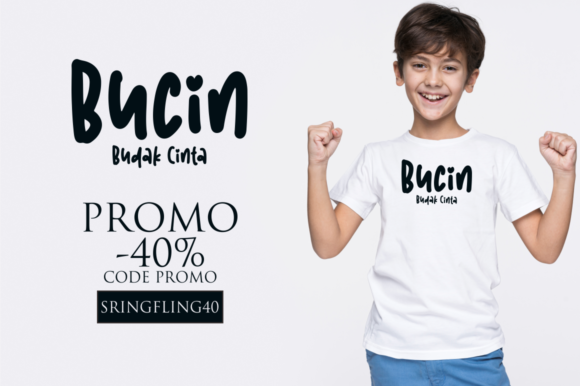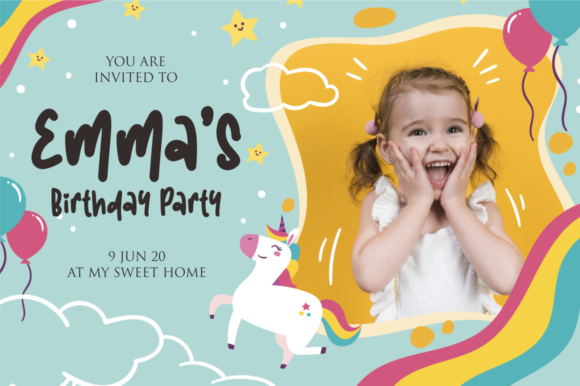
Mama Papa Font
db-ku.com - Script & Handwritten -- Mama Papa is a sweet and quirky handwritten font. Fall in love with its incredibly versatile and unique style and use it to create spectacular designs!